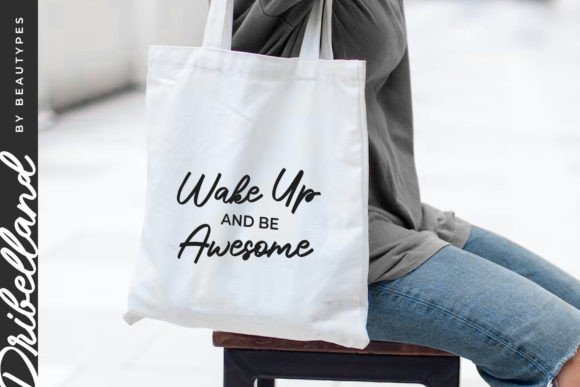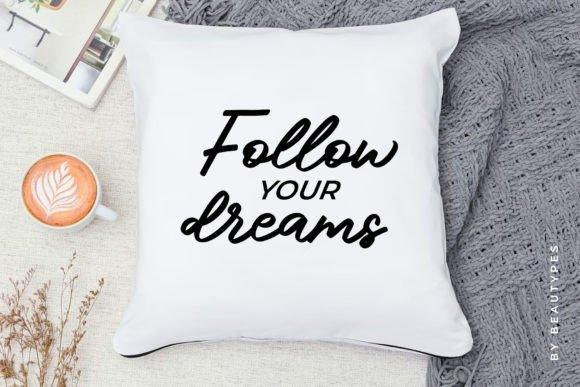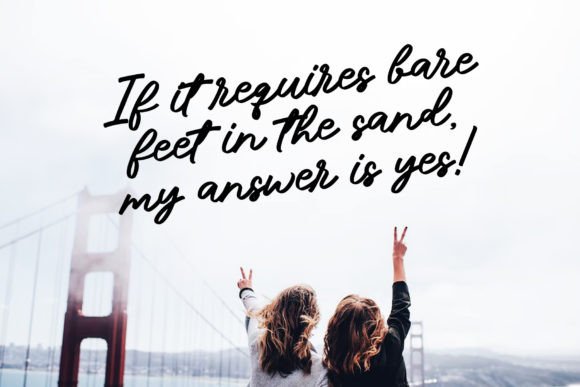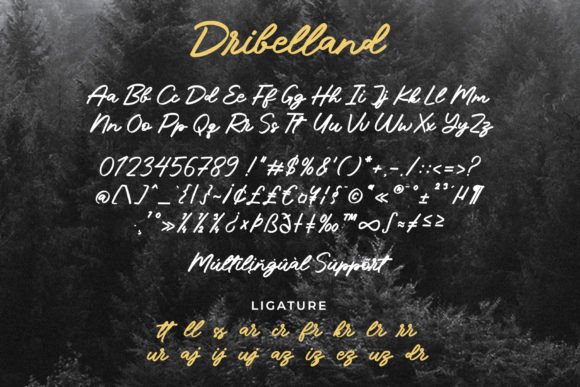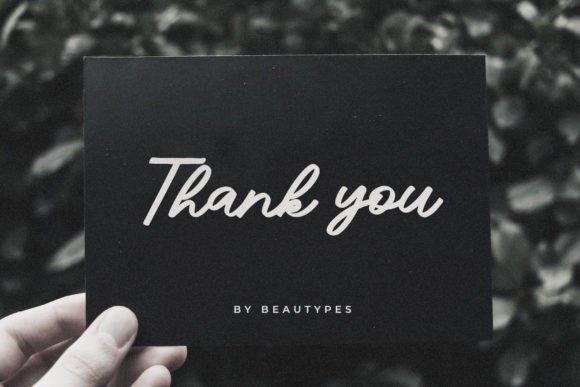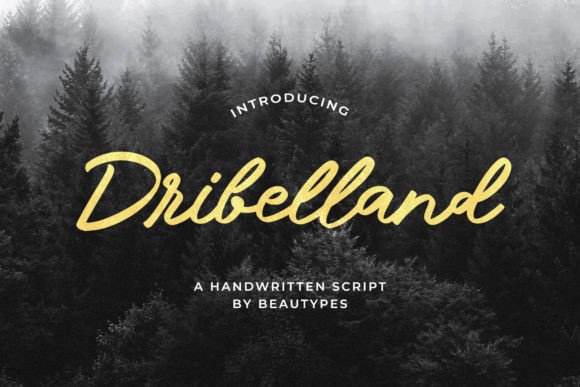
Dribelland Font: The Ultimate Handwritten Font for Creative Projects
Are you a designer or crafter looking for a fresh and unique font to elevate your creative projects? Look no further than Dribelland Font! This amazing handwritten font is perfect for a wide range of applications, from logos and stationery to posters, apparel, branding, and more.
What Makes Dribelland Font So Special?
Dribelland Font is a one-of-a-kind font that boasts a beautiful, handwritten look that’s sure to capture the attention of your audience. Its unique and fresh design makes it perfect for designers and crafters who want to add a personal touch to their projects. Whether you’re creating a logo, poster, or product packaging, Dribelland Font is the perfect choice.
Uses for Dribelland Font
Dribelland Font is incredibly versatile and can be used for a wide range of creative projects, including:
• Logos: Create a unique and memorable logo for your business or brand with Dribelland Font.
• Stationery: Add a personal touch to your stationery, including greeting cards, invitations, and letters.
• Posters: Create eye-catching posters for events, promotions, or advertising campaigns.
• Apparel: Design custom t-shirts, hoodies, and other apparel with Dribelland Font.
• Branding: Use Dribelland Font to create a consistent brand identity across all your marketing materials.
• Advertisements: Create attention-grabbing ads with Dribelland Font.
• Product Packaging: Add a personal touch to your product packaging with Dribelland Font.
• Product Designs: Use Dribelland Font to create unique and eye-catching product designs.
• Labels: Create custom labels for products, files, or folders with Dribelland Font.
• Wedding Invitations: Add a touch of elegance and sophistication to your wedding invitations with Dribelland Font.
Why Choose Dribelland Font?
There are many reasons why Dribelland Font stands out from the crowd. Here are just a few:
• Unique Design: Dribelland Font has a one-of-a-kind design that’s sure to make your projects stand out.
• Handwritten Look: The font’s handwritten look adds a personal touch to any project.
• Versatility: Dribelland Font can be used for a wide range of creative projects.
• Easy to Read: Despite its unique design, Dribelland Font is easy to read and understand.
Tips for Using Dribelland Font
Here are a few tips for getting the most out of Dribelland Font:
• Experiment with Sizes: Dribelland Font looks great in a variety of sizes, so don’t be afraid to experiment.
• Pair with Other Fonts: Try pairing Dribelland Font with other fonts to create a unique and eye-catching design.
• Use for Headlines and Body Text: Dribelland Font is perfect for both headlines and body text.
Dribelland Font is a fresh and unique font that’s perfect for designers and crafters who want to add a personal touch to their creative projects. With its handwritten look and versatility, Dribelland Font is sure to become a go-to font for anyone looking to create eye-catching and memorable designs. So why wait? Download Dribelland Font today and start creating amazing projects!